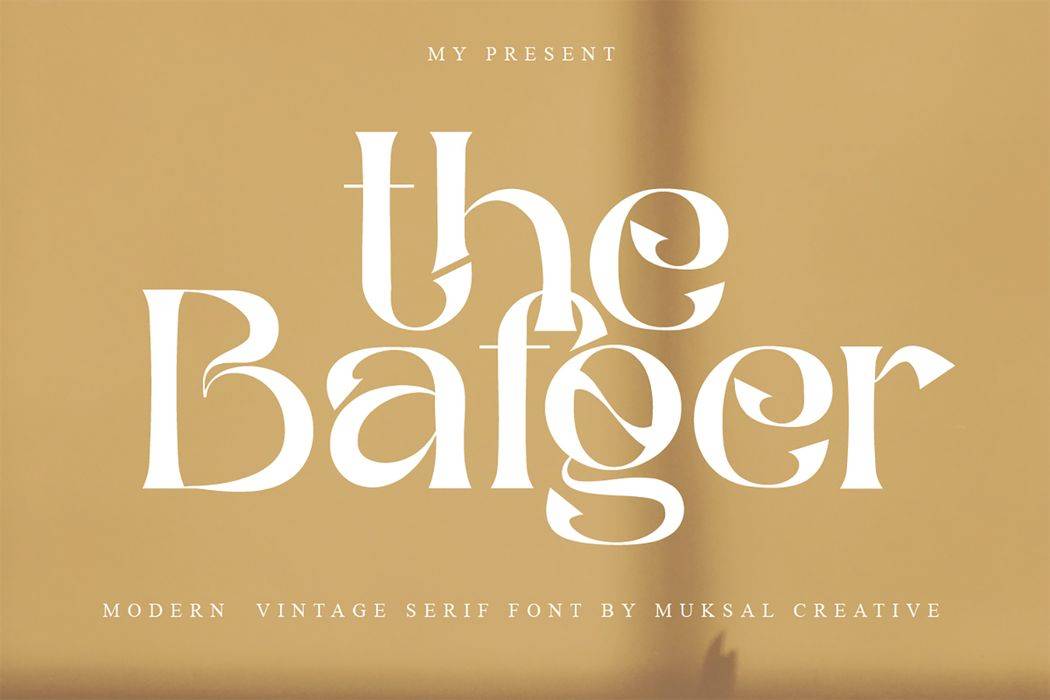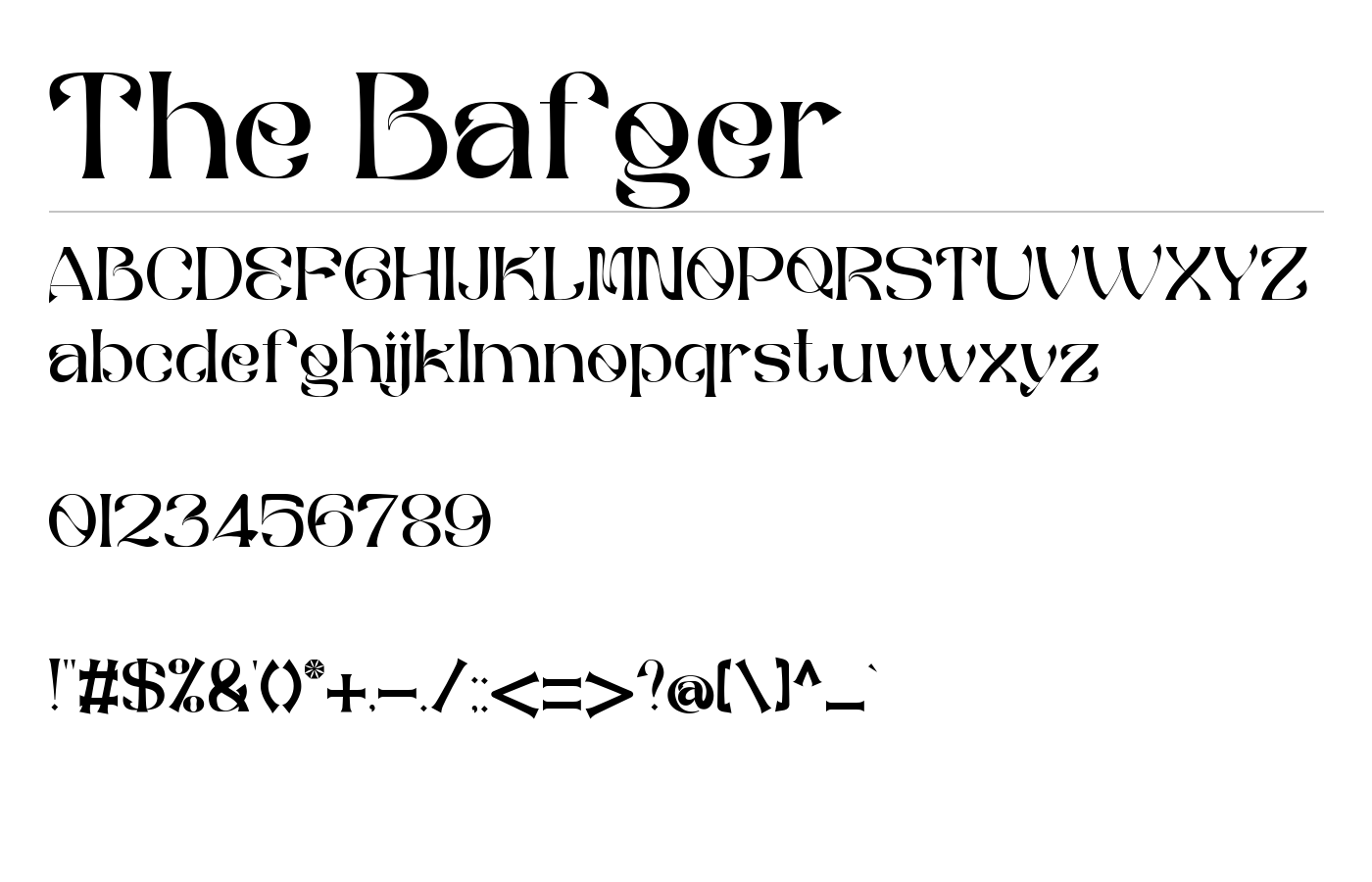
The Bafger font is a unique serif typeface with a modern twist, featuring high contrast strokes and artistic, almost calligraphic details that give it a playful yet refined character. Its distinct letterforms, such as the stylized "g" and quirky curves, make it ideal for creative branding, editorial headlines, and decorative uses where personality and elegance are desired. This font stands out with its combination of sophistication and distinctive charm, perfect for projects needing a memorable and stylish touch.
The Bafger Font
About The Bafger Font